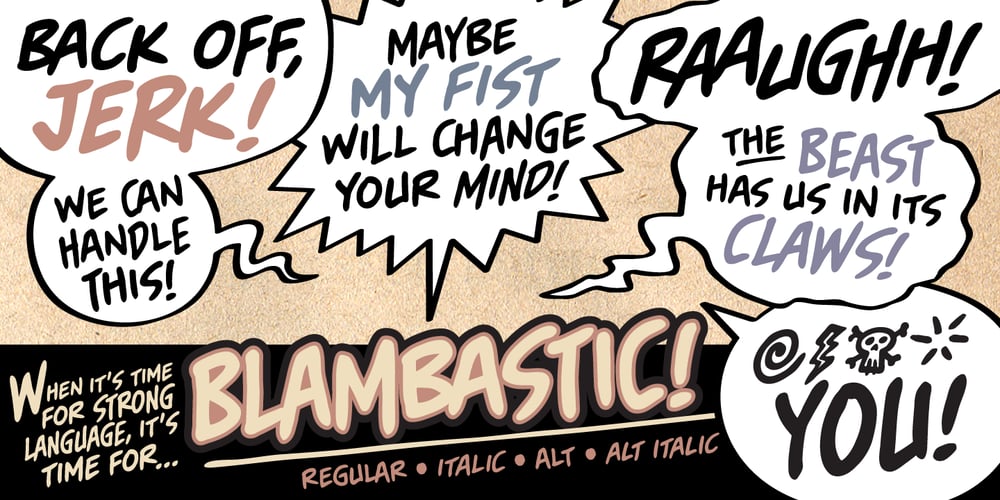
Blambastic BB Font Family was designed by Nate Piekos and published by Blambot. Blambastic BB contains 4 styles and family package options. Blambastic BB is an over-the-top, all-caps, comic book font with tall uppercase letters, and short lowercase letters; mix and match for a bouncy baseline! In addition to plenty of European characters, the Blambastic family includes ten autoligatures for grawlixes – five in each of the Regular and Alt sets. Access them by typing _@_ _#_ _&_ _!_ _*_ Notes: A font family on MyFonts.com can contain an unlimited number of styles.